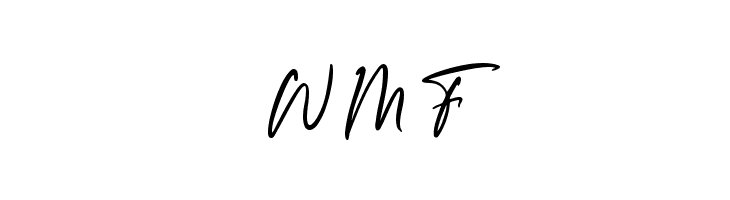
A decorative font with bold letters integrated with porpoise illustrations.
A sophisticated, elegant handwritten script with fluid, continuous strokes.
A bold, three-dimensional font with strong shadow effects and a vintage-inspired style.
A bold, geometric font with a futuristic and dynamic style.
A pixelated, retro-style font with a digital, grid-like appearance.
A bold, gothic-inspired font with sharp, angular lines and a modern twist.
Ornate Arabic calligraphic style with dense, decorative detailing.
A dynamic and elegant script font with fluid, connected letterforms.
A bold, futuristic font with sharp, angular edges and a geometric design.
A modern, high-contrast font with elegant, slender characters.
设计师偏爱 LMS Porpoise Print, Britties Signature, Odense Regular, seba and Haversham,因为其造型干净、适用范围广—— 从品牌识别到落地页、海报都能胜任。